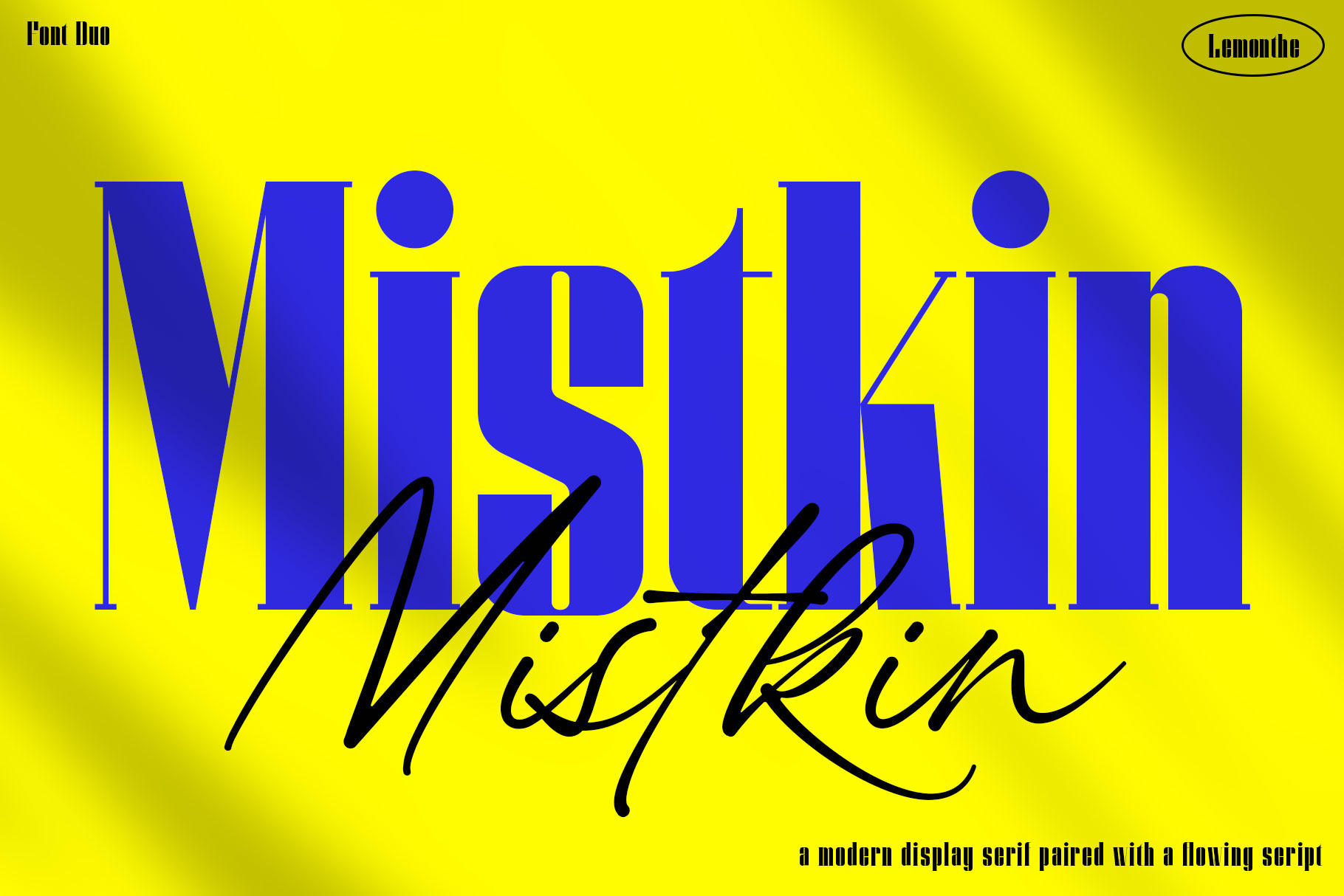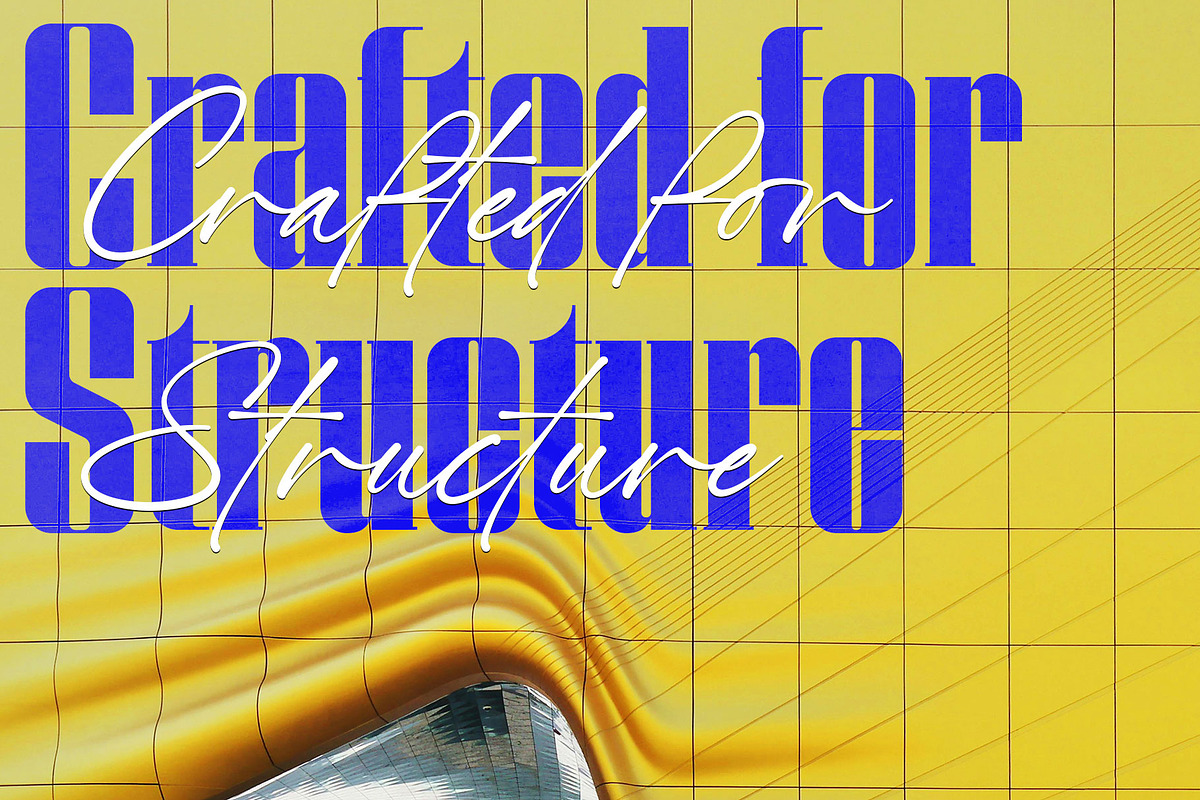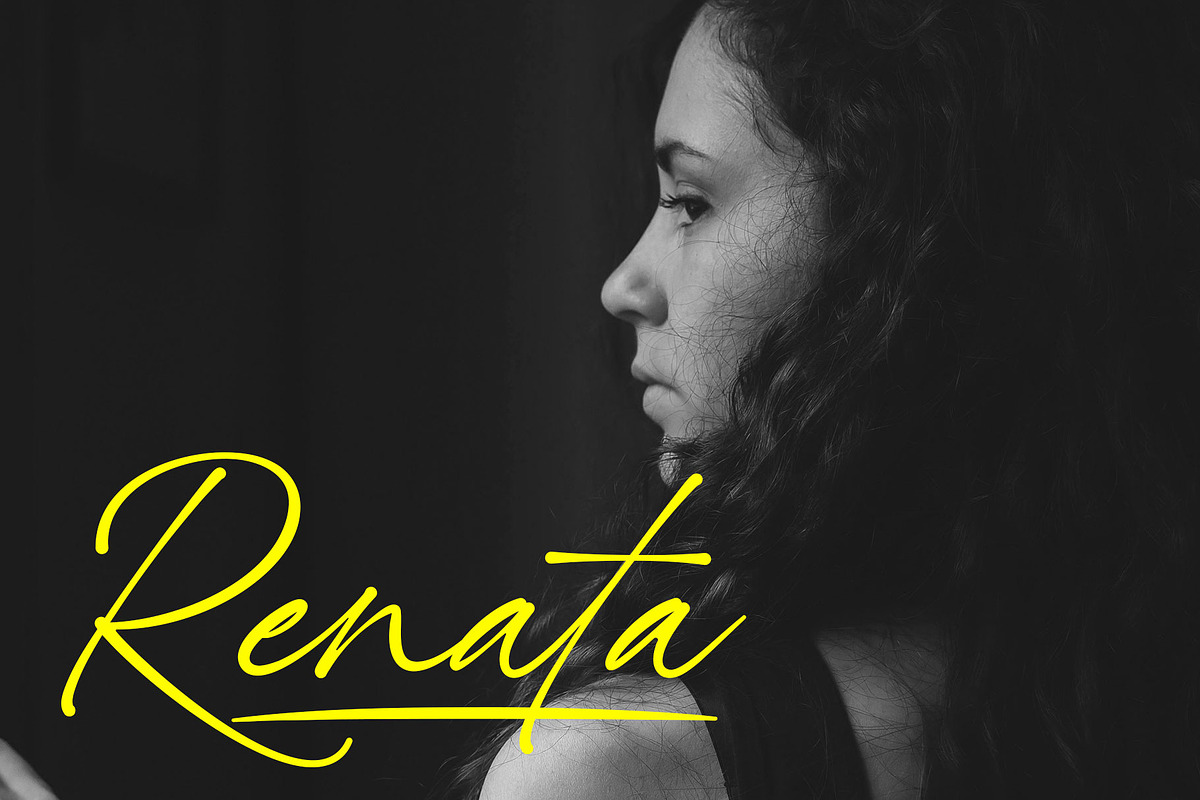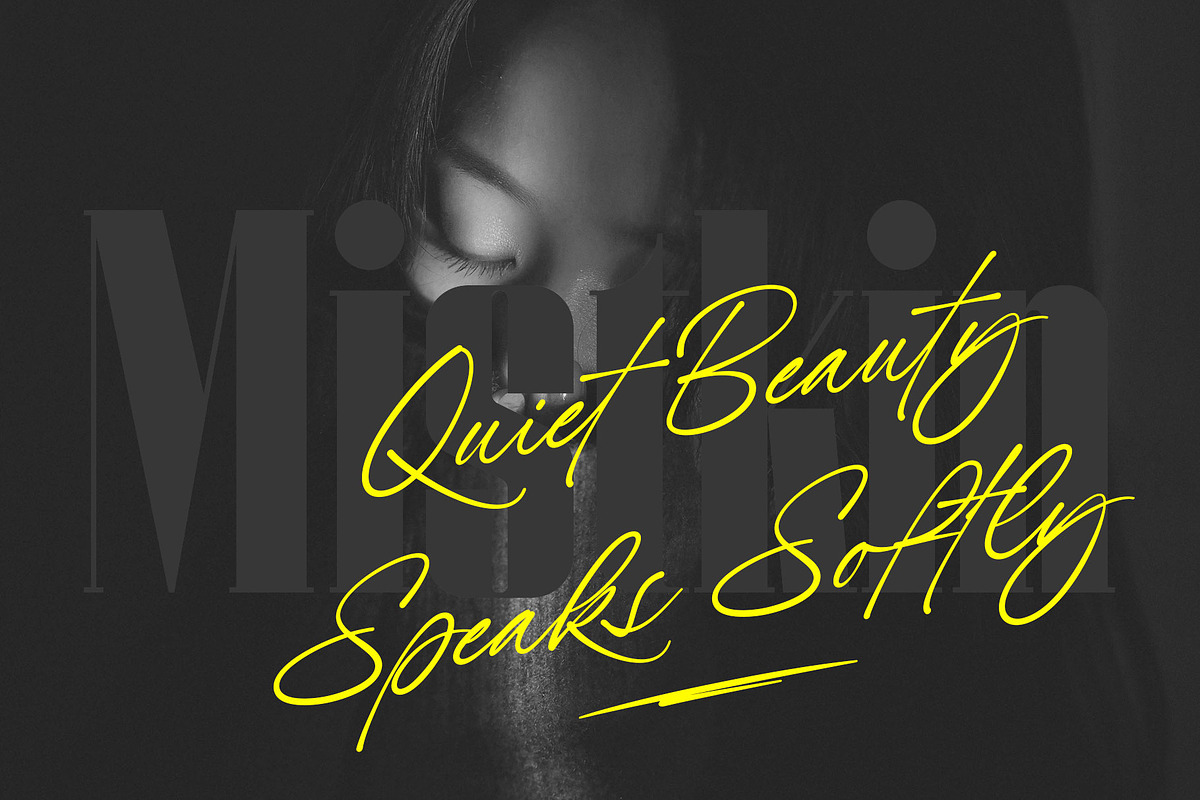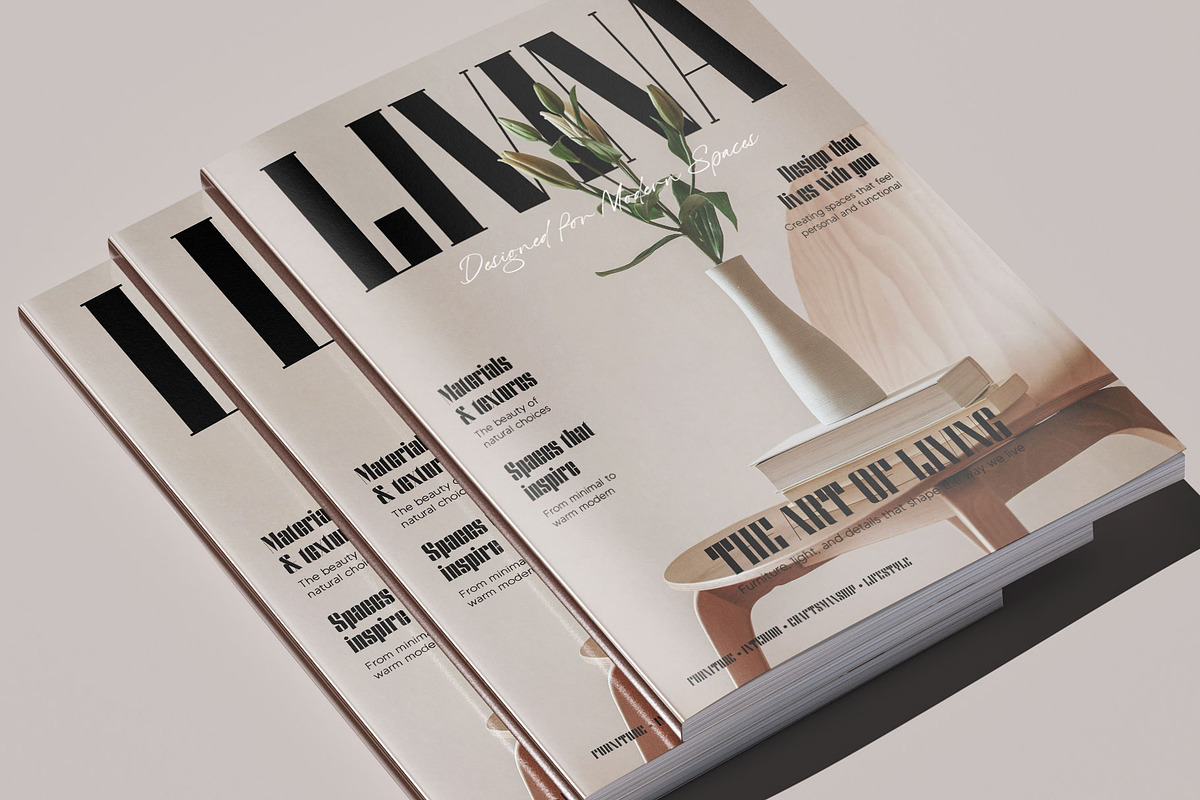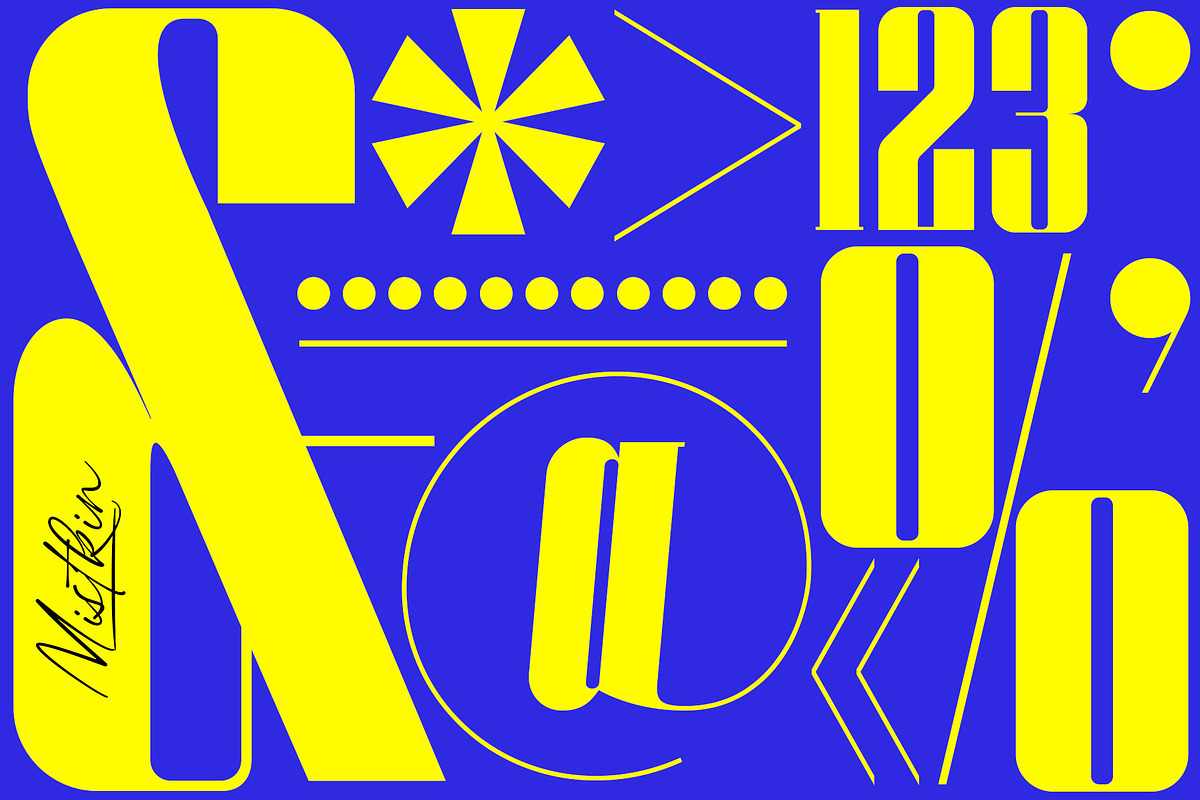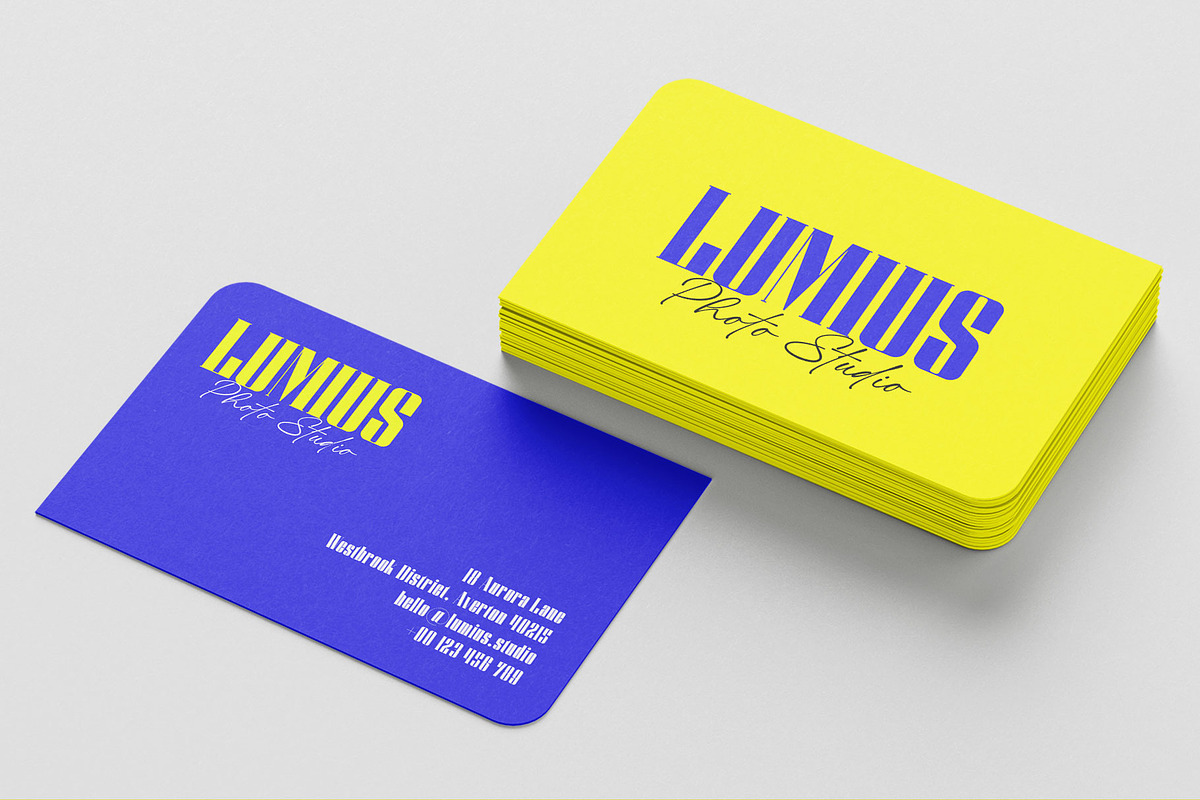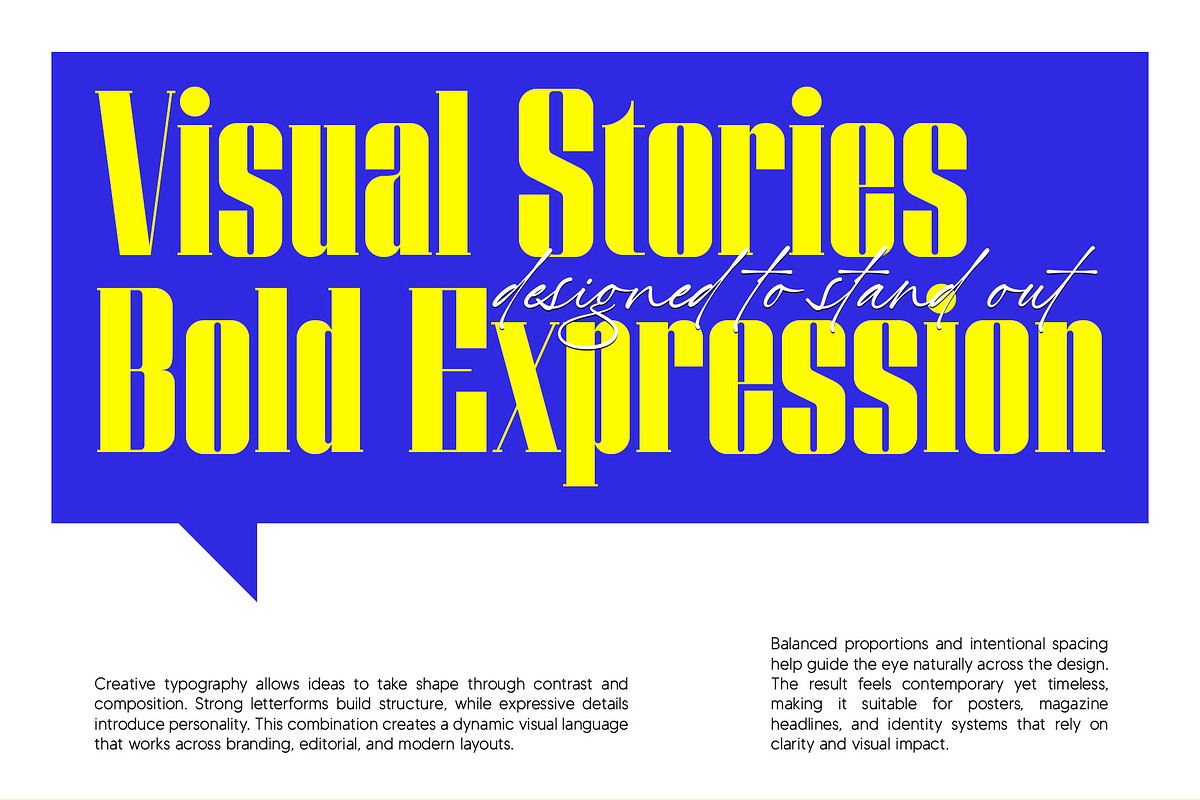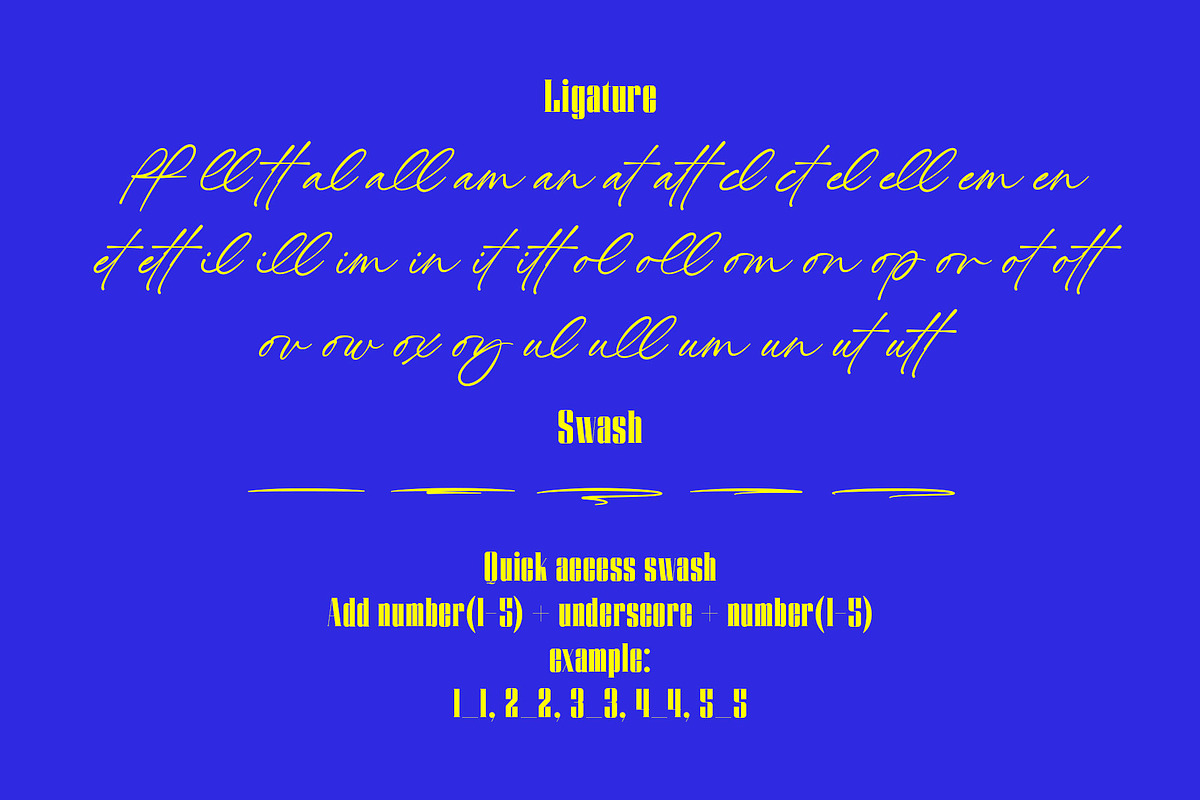
Mistkin | Font Duo
Mistkin is a modern font duo that blends a bold display serif with a flowing signature script into a harmonious and refined visual style. The combination creates a striking yet elegant balance, where strong letterforms meet smooth handwritten motion, resulting in a contemporary look that feels both expressive and sophisticated. This seamless pairing makes Mistkin ideal for branding, editorial layouts, logos, packaging, and stylish headlines.
The script features carefully crafted ligatures and elegant swashes that add a natural handwritten rhythm and enhance the overall typography. Used together or separately, Mistkin delivers a clean aesthetic with a refined blend of structure and flow, making it suitable for luxury branding, editorial design, and creative projects.
Display Serif & Script Signature
Swash
Numerals and Punctuation
Quick access swash
- Add number (1–5) + underscore + number (1–5) Example: 1_1, 2_2, 3_3, 4_4, 5_5